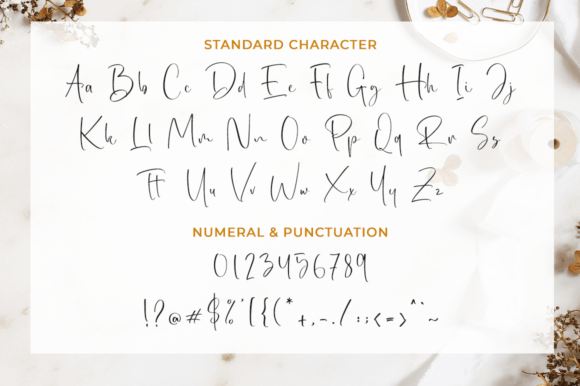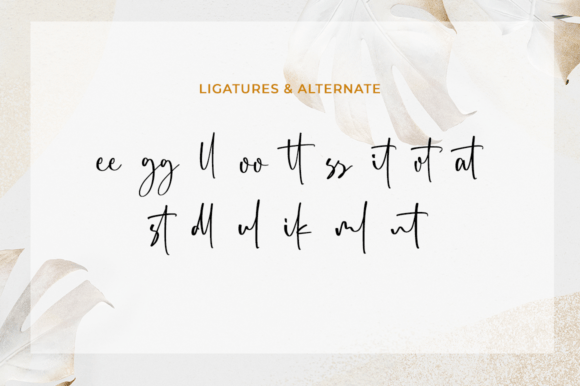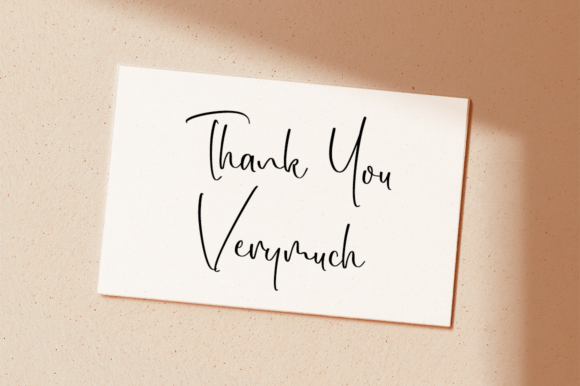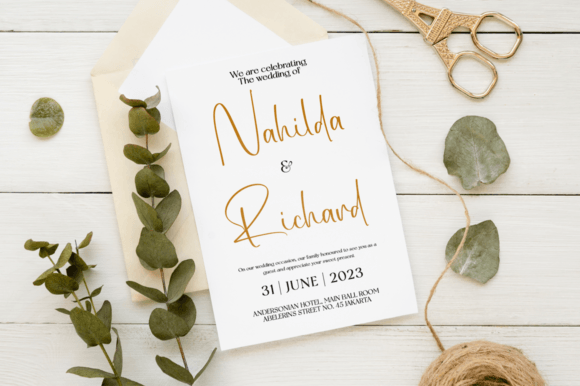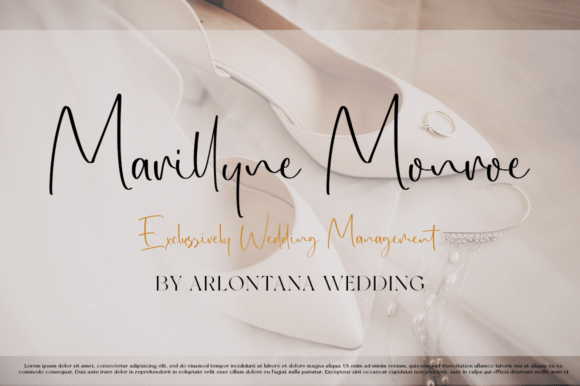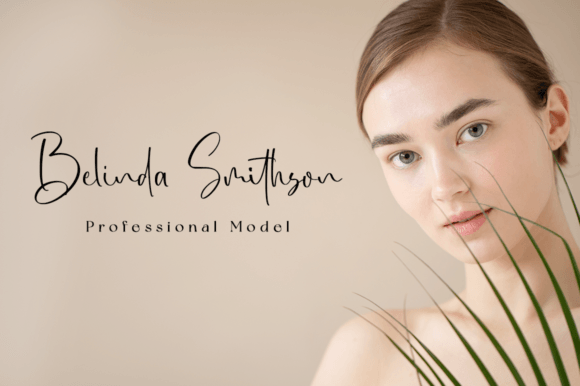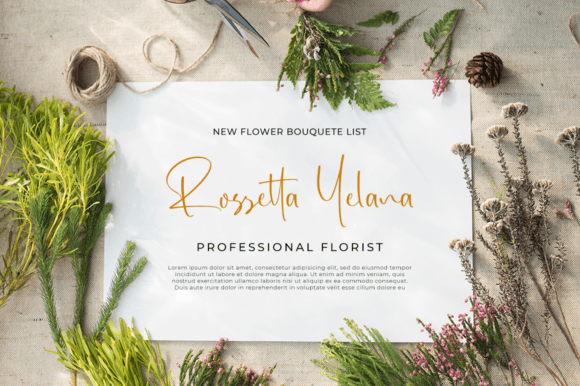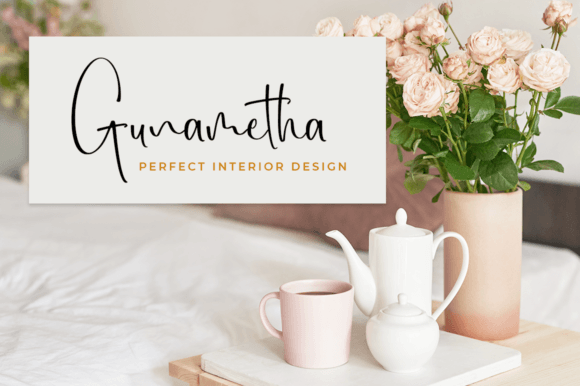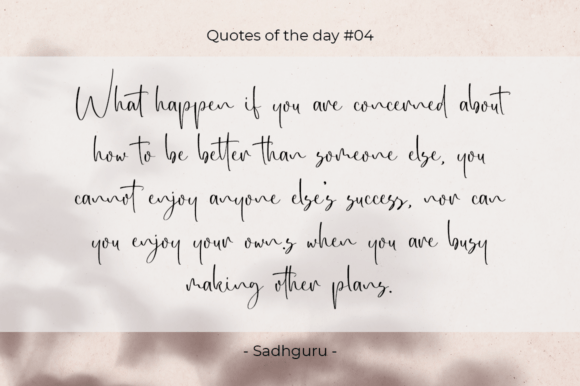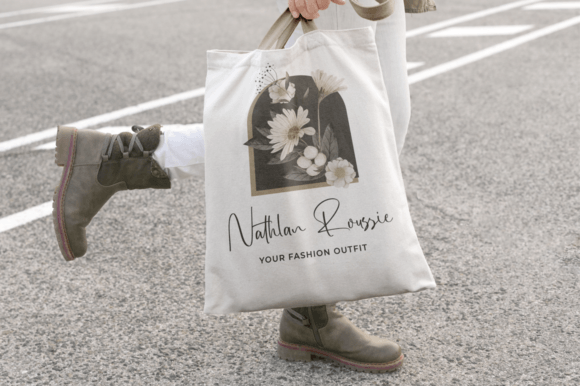
Marionette Font
The Marionette Font Download is an elegant handwritten script designed to bring beauty and individuality to your projects. With graceful strokes and a refined handwritten flow, it looks stunning on invitations, thank you cards, quotes, and logos. Because it is PUA encoded, you can access all glyphs, ligatures, and swashes with ease, giving you full creative control.
A Distinct Handwritten Script with Elegance
Marionette combines delicate handwritten style with professional usability. Unlike ordinary fonts, this Marionette script font feels both gorgeous and unique, making it ideal for designs that need personality and elegance. As a result, it is perfect for creative professionals and hobbyists alike.
Handwritten fonts add charm to special event stationery. The Marionette Font is perfect for wedding invitations, thank you notes, and greeting cards. Moreover, its graceful flow makes every word feel personal and heartfelt.
Branding and Logo Design with Marionette Font
Typography is key in shaping brand identity. The Marionette handwritten font works beautifully for logos, product packaging, and promotional materials. In addition, it gives brands a stylish and timeless personality that resonates with audiences.
Posters, Quotes, and Business Cards
Large and small designs alike benefit from fonts that remain legible and stylish. The Marionette Font Download works for posters, inspirational quotes, and business cards. Therefore, it is versatile enough for projects requiring clarity and elegance at any size.
In digital platforms, stylish typography makes content stand out. The Marionette typeface integrates seamlessly with Instagram posts, Pinterest graphics, YouTube thumbnails, and blogs. Its handwritten beauty ensures your online presence feels polished and engaging.
Why Designers Choose Marionette Typeface
Designers prefer fonts that maintain clarity without losing artistry. Many handwritten scripts become difficult to read at smaller sizes, but the Marionette handwritten script remains clear while keeping its elegant character. This makes it a reliable choice for a variety of creative projects.